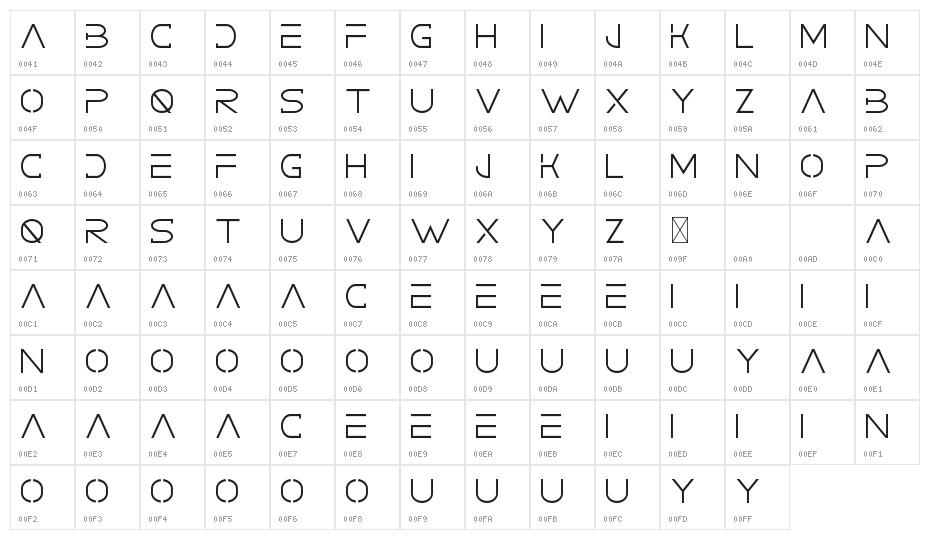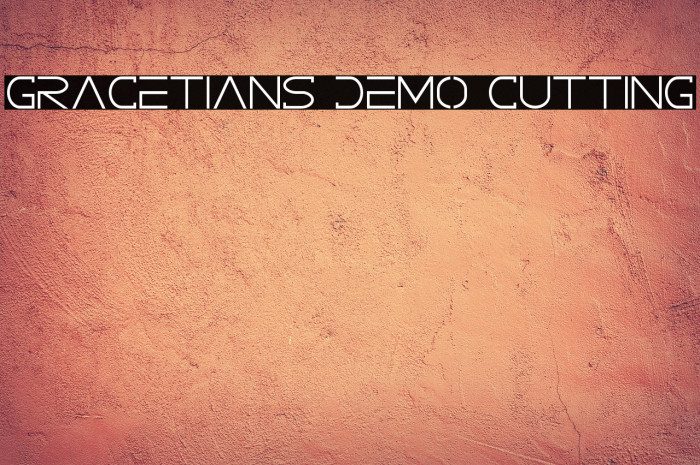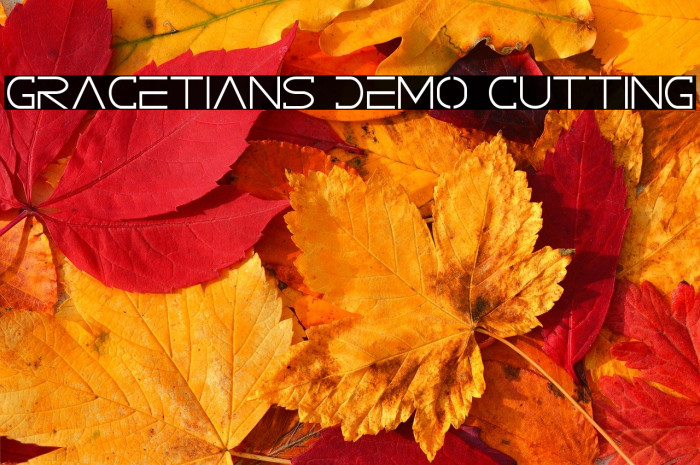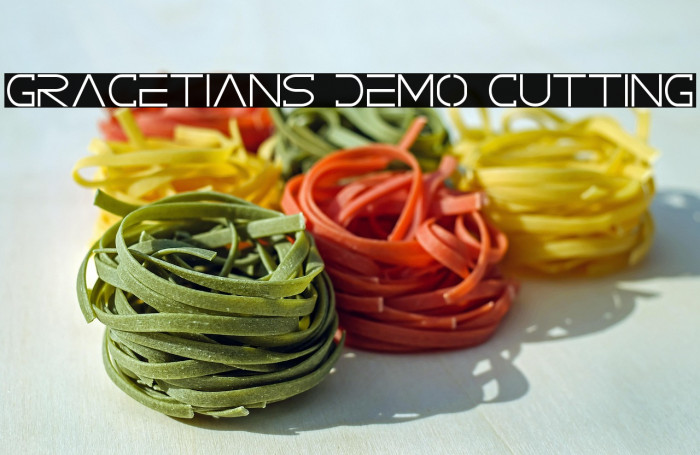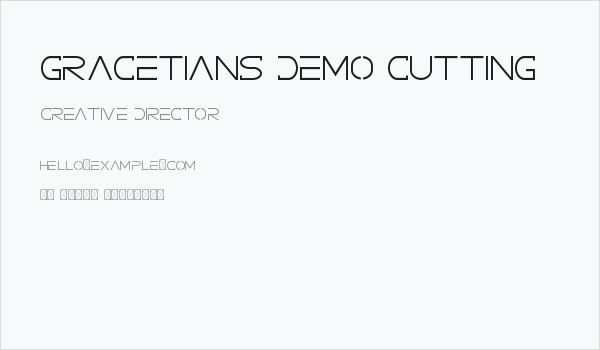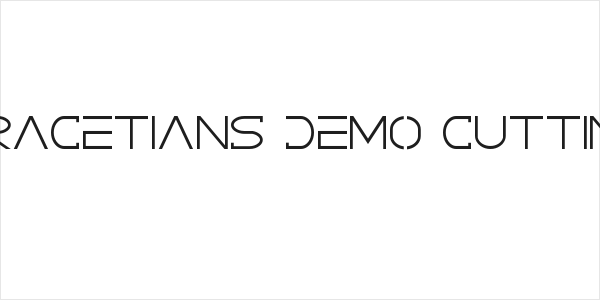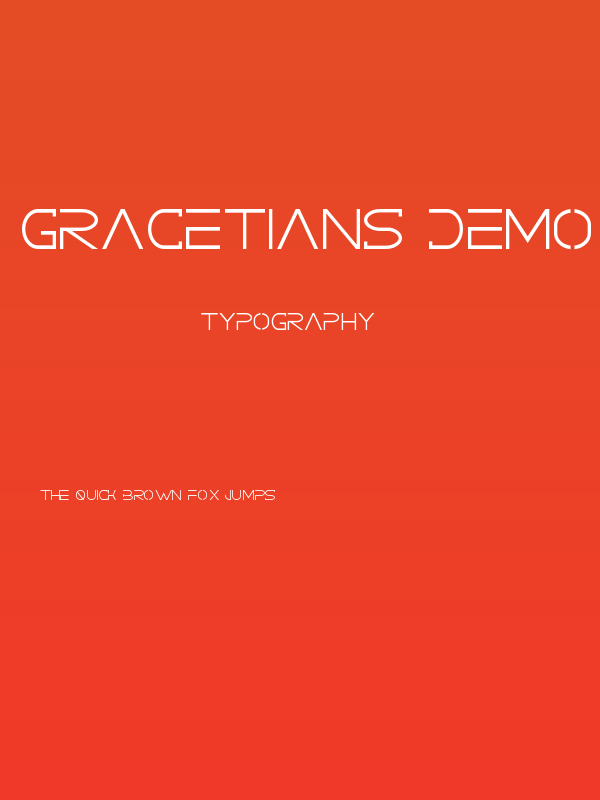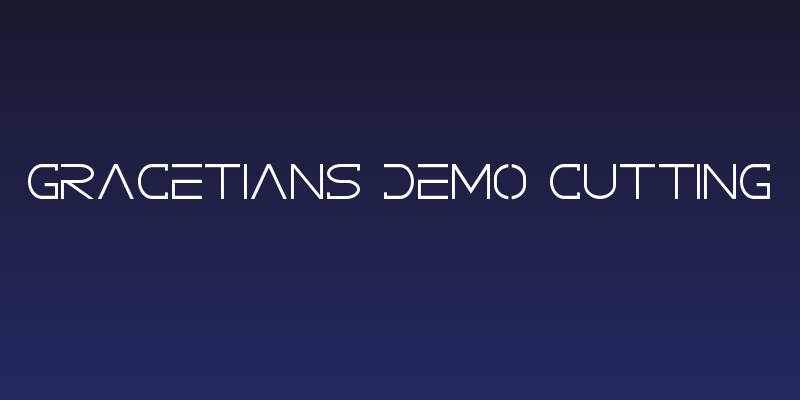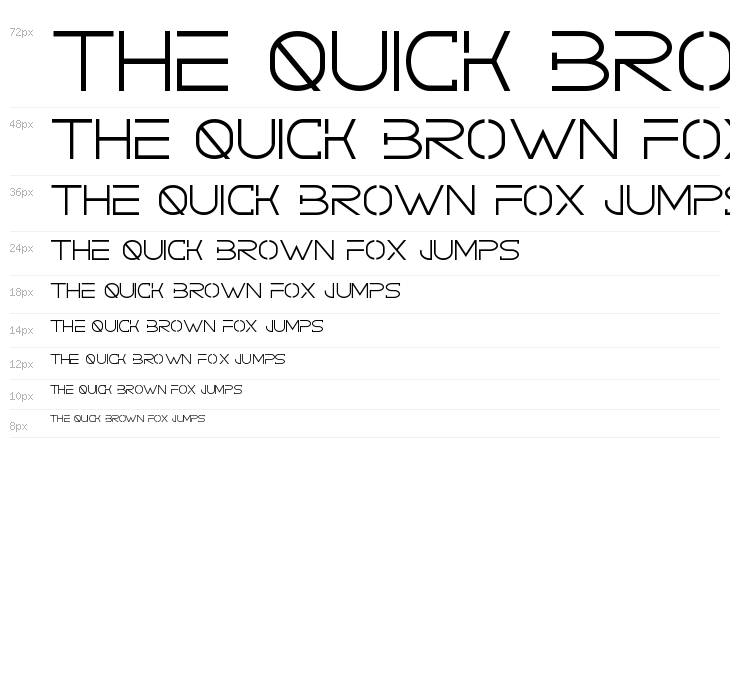
GRACETIANS DEMO Cutting Font
GRACETIANS DEMO Cutting Description
This font features a modern and geometric design with a distinct, futuristic appeal. The characters are constructed with clean, straight lines and sharp angles, giving it a technical and precise look. The uppercase letters are uniform in height, while the lowercase letters maintain a similar style, ensuring consistency throughout. The font's unique characteristic is the incorporation of horizontal and vertical cuts within the letterforms, adding an element of intrigue and complexity. This design choice enhances the font's modern aesthetic, making it suitable for contemporary and innovative projects. The spacing between characters is balanced, providing a clear and readable appearance.
| Use Case | Logos, Headlines |
| Proposed Projects | Ideal for technology branding, futuristic posters, and innovative product packaging. |